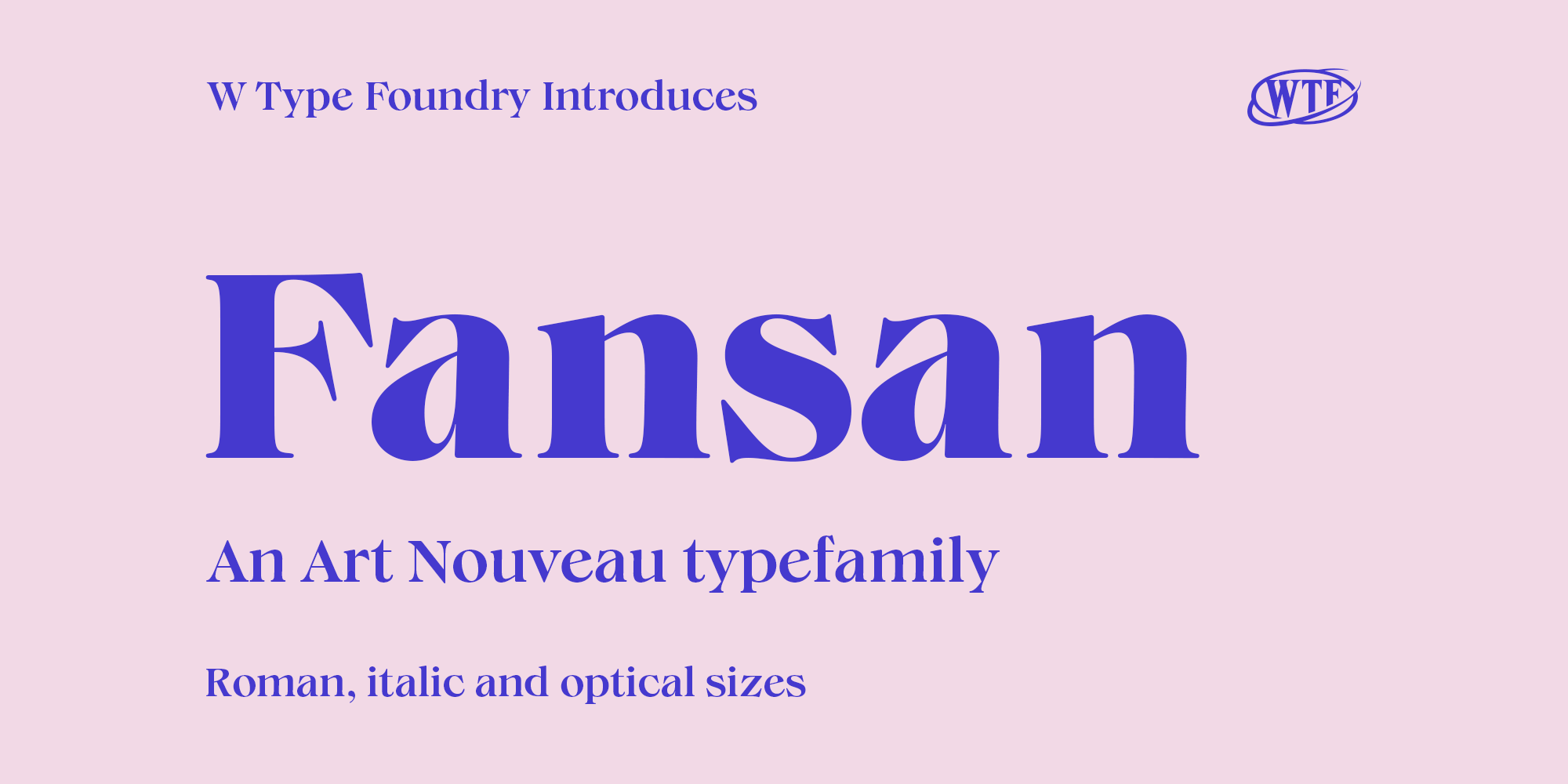
Fansan Font is perfect for creative artistic projects, modern gallery exhibitions, contemporary design studios, innovative tech startups, artistic portfolio presentations, creative agency branding, avant-garde fashion labels, experimental music promotions, cutting-edge advertising campaigns, and forward-thinking brand identity.
What makes Fansan Font so exciting is its innovative design that pushes the boundaries of conventional typography while maintaining exceptional functionality. This typeface features unique letterforms with creative geometric construction and artistic flair that demonstrates forward-thinking design philosophy. The font's modern and inventive character communicates creativity and innovation, making it perfect for brands seeking to establish themselves as pioneers in their field and connect with audiences who appreciate bold artistic expression and cutting-edge design solutions.
Fansan Font family includes Regular, Bold, Light, and Condensed weights, along with experimental alternates and artistic variations. The family also features special character sets including creative symbols, design elements, and artistic decorative components that enhance the font's connection to contemporary art and innovative design themes.
Fansan Font supports comprehensive character sets including Latin alphabets, numbers, punctuation marks, and special creative symbols. The font's carefully constructed spacing balances artistic expression with practical readability across all applications. Its OpenType features include contextual alternates, creative ligatures, and artistic decorative elements that expand possibilities for experimental design projects.
Professional designers choose Fansan Font for projects requiring authentic contemporary appeal and creative innovation. The font excels in applications where artistic expression and modern aesthetics are essential, offering the perfect solution for brands seeking to communicate creativity, innovation, and forward-thinking vision. Its contemporary character makes it ideal for design studios, tech companies, and creative agencies.